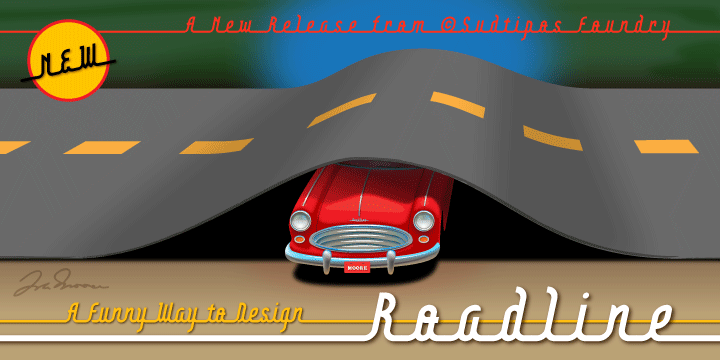
Roadline is a typeface inspired in Art Deco letterforms as a retro version of the vintage baseline automobile and artifacts script lettering of the thirties and forties.
Roadline comes in three distinct extensions of the baseline, to make attractive and decorative lines of text with different distances between letters.